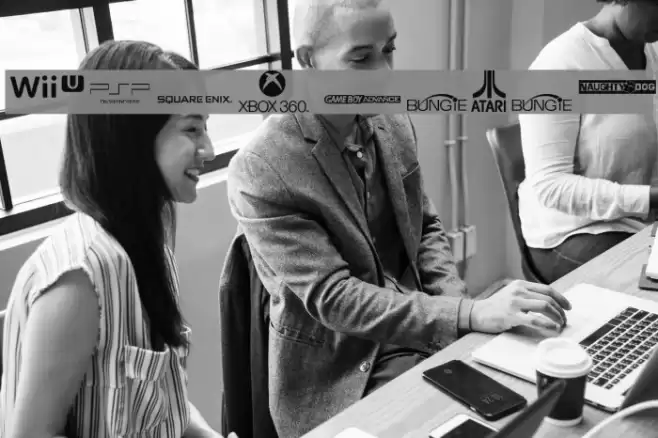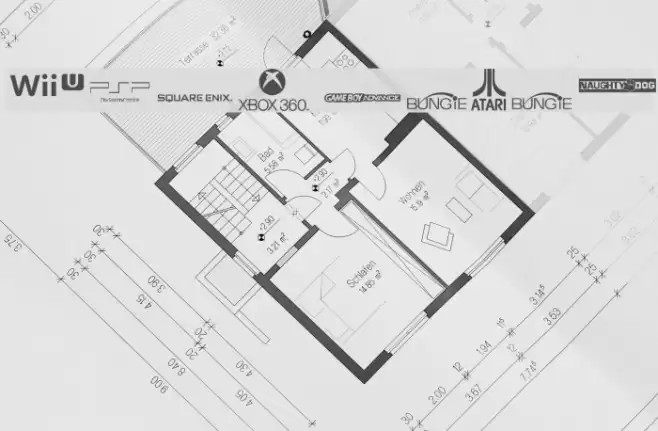
Game Logos Font
Game Logos Description
A collection of bold, geometric, and highly stylized sans-serif and decorative fonts, each designed for strong brand identity and instant recognition. The fonts feature a mix of condensed and normal widths, with varying character spacing and line heights, often incorporating unique letterforms, custom ligatures, and graphic elements.
Bold, geometric, and decorative fonts designed for gaming brand logos from Dingbats fonts.
- Proposed Projects: Video game branding, logo design, merchandise, promotional materials, esports team branding.
- Overall Style: Modern, Decorative
- Use Case: Logos, Branding, Headlines